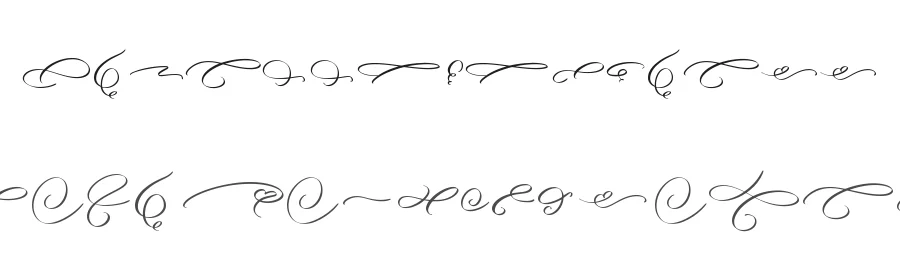
About Syabian Font
| Designer | Nox Studio 2021 |
Syabian supports 89 languages.
Syabian Font is a script font that shines as a display or heading face. Pair it with a clean sans-serif or serif font for body text β the contrast creates a clear hierarchy while the two styles stay balanced and easy to read.
Syabian Font
by Sarif Letter